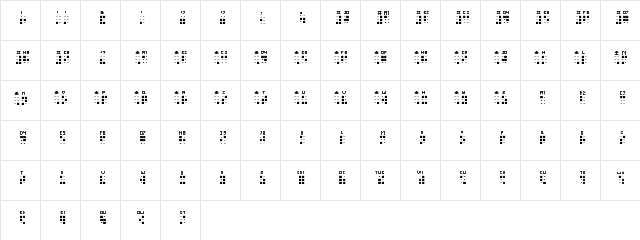
Braille Punch Regular
| Designer | Woody Barnes |
Design Context for Braille Punch Typeface
Braille Punch is a composed and adaptable typeface that performs quietly and consistently across a wide range of design contexts.